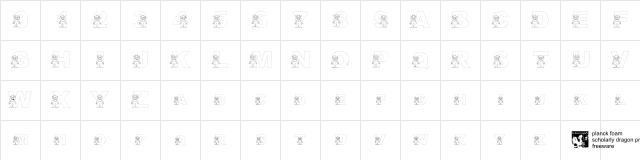
pf_monster-2 Outline Regular
Design Context for pf_monster-2 Outline Typeface
pf_monster-2 Outline brings ornamental detail and strong personality to headlines and identities, where visual impact matters more than quiet functionality.
Font Pairing: Pair with a clean neutral sans-serif for body copy to let pf_monster-2 Outline's character lead without overwhelming the composition.
Pro Tip: Treat pf_monster-2 Outline as the centrepiece of your typographic hierarchy. One strong heading set in a decorative face can carry an entire layout.